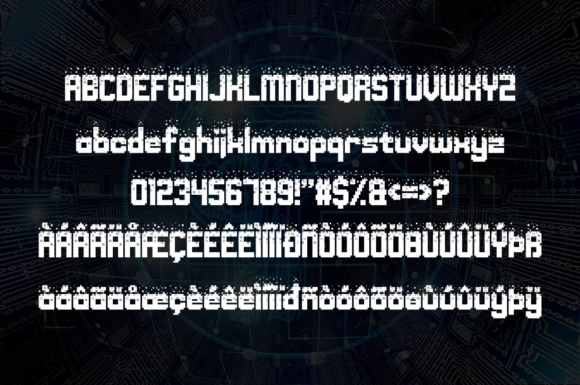
Introduction to Nightmare Codehack Font
Do you remember that moment when a design just clicks? The colors, the typography, the overall vibe – everything comes together in perfect harmony. For designers, that ‘aha’ moment is what drives us to create something truly special. And, let’s be honest, it’s not always easy to find the right design resource to get us there.
That’s where the Nightmare Codehack Font comes in – a display font that’s as quirky as it is effective. With its retro aesthetic and versatile design, this font is the perfect addition to any creative project. Whether you’re working on a design for a free download or a high-end campaign, Nightmare Codehack Font is sure to add a touch of sophistication and personality to your work.
But what really sets Nightmare Codehack Font apart is its ability to be used with a transparent background, giving you endless possibilities for creative expression. And, with its high-quality design, you can trust that your work will look its best on any platform.
Key Features of Nightmare Codehack Font
- High-quality design with a unique, futuristic aesthetic, perfect for creative projects.
- Comes with a transparent background, allowing for easy integration into various design elements.
- Features a high-resolution design, with a minimum resolution of 300 DPI for crisp and clear display.
- Designed to be versatile, suitable for a wide range of creative projects, from graphic design to digital art.
- Part of a larger collection of fonts, offering endless possibilities for designers looking to experiment with new styles.
Honest Review: Nightmare Codehack Font
One of the things that works well with this font is its versatility. It’s perfect for designers who want a high-quality, unique font that can add some edge to their design resource. The transparent background option is also a great feature, making it easy to integrate into any design.
Here are some of the things I like about Nightmare Codehack Font:
- Unique and bold character designs
- Works well in both digital and print designs
- Easy to customize with transparent background
- Limited character set (may not be suitable for lengthy text)
- Some users may find the font too bold or overpowering
- May not be suitable for designs that require a lot of subtlety
- ⚠️ Some characters may not display correctly in certain software
Overall, I think the Nightmare Codehack Font is a solid design resource, but it’s not for everyone. It’s perfect for designers who want to add some excitement to their creative project, but may not be the best choice for more subtle or traditional designs. ✨
Use the Nightmare Codehack Font with a transparent background to create a unique and eye-catching design. Experiment with different font sizes and colors to achieve the desired effect. You can also use this font in combination with other design elements to create a visually appealing design.
The Nightmare Codehack Font is ideal for use in creative projects, such as graphic designs, logos, posters, and presentations. It’s also suitable for use in digital designs, such as social media graphics, websites, and mobile apps.